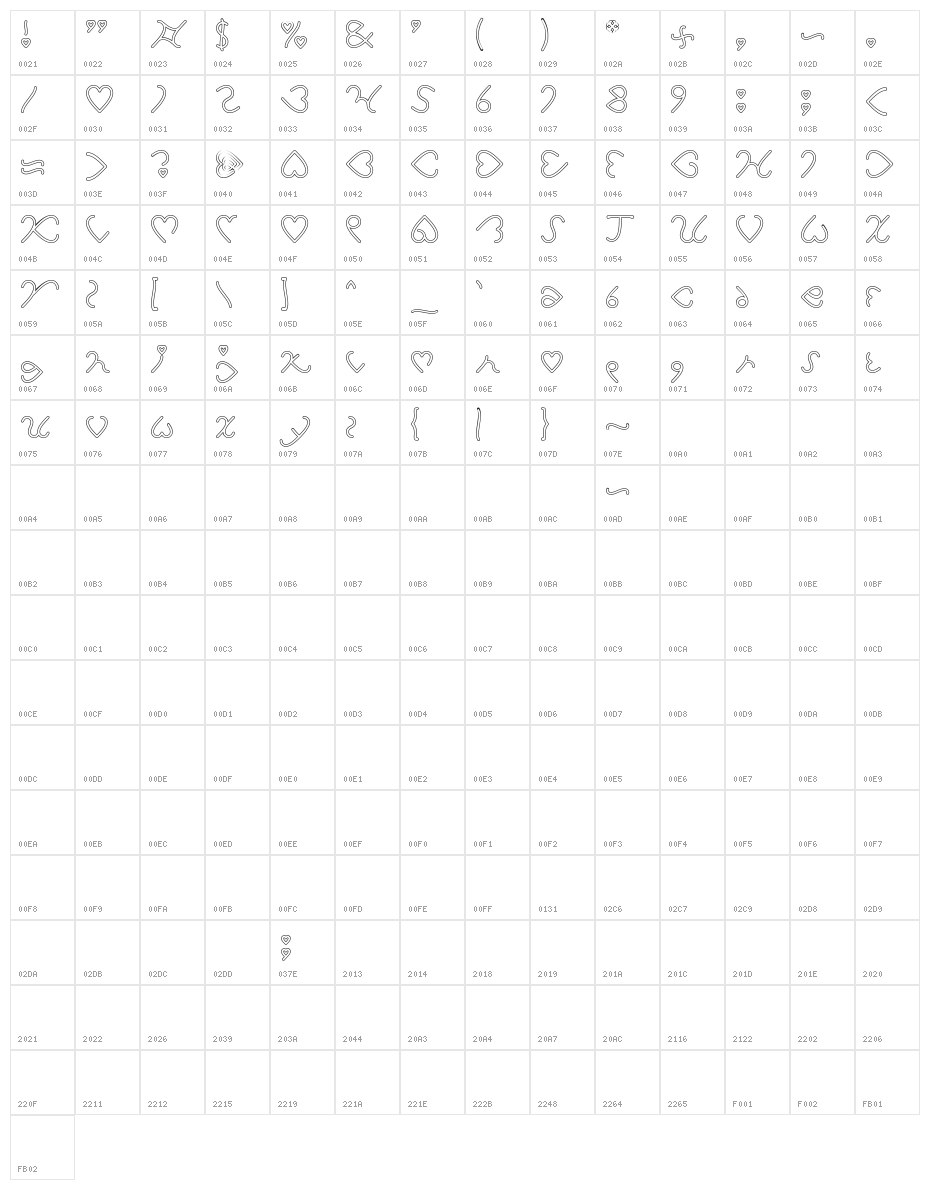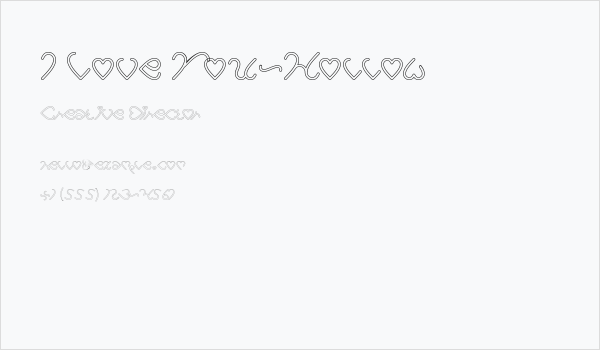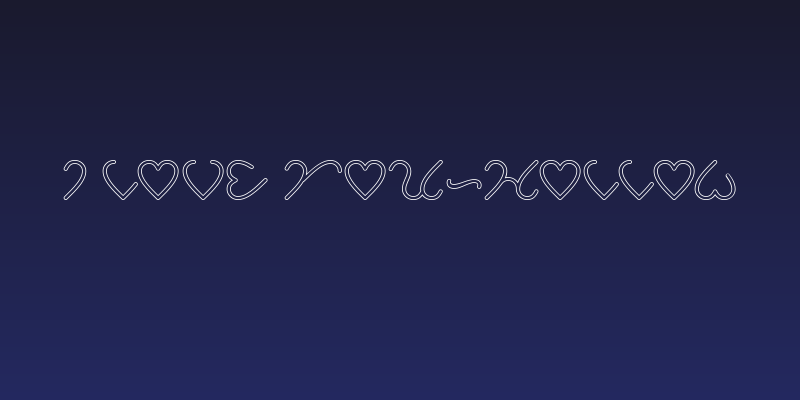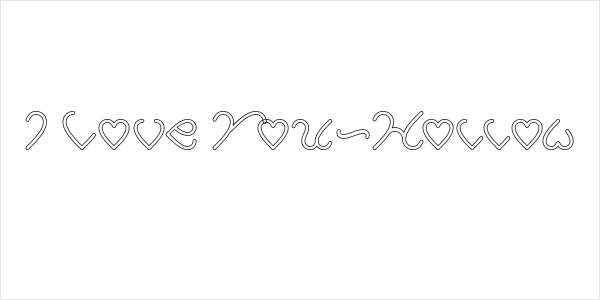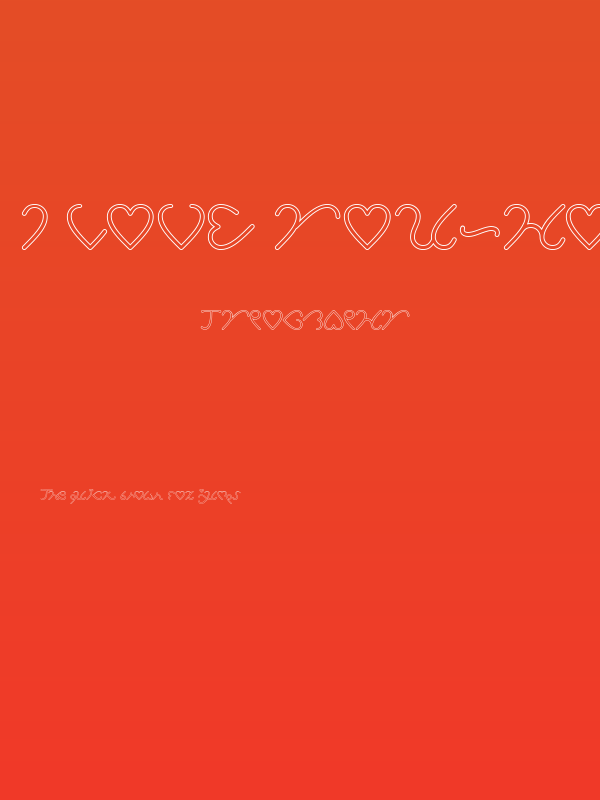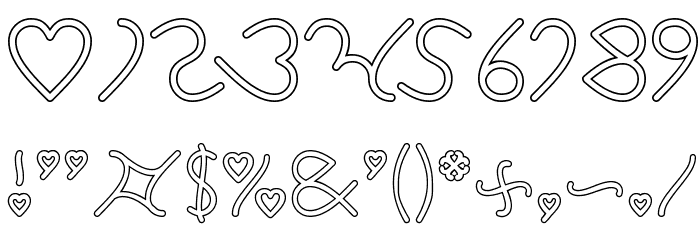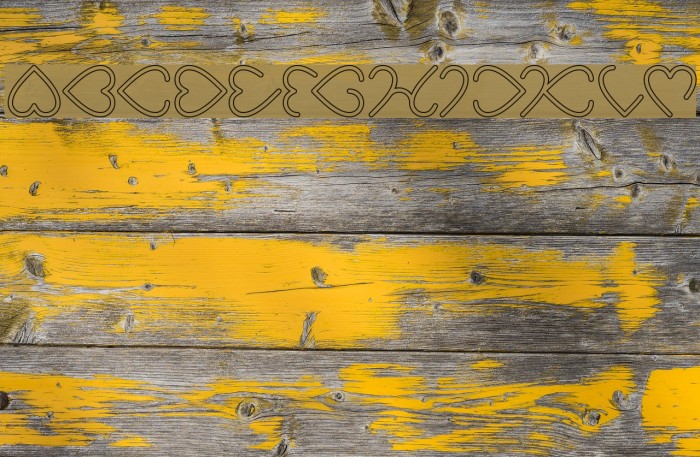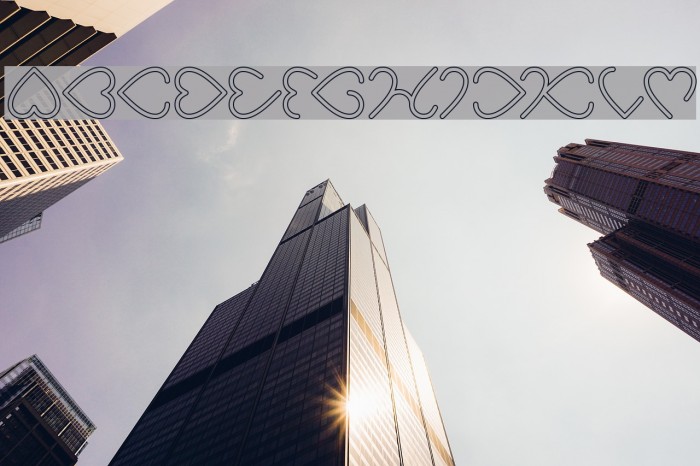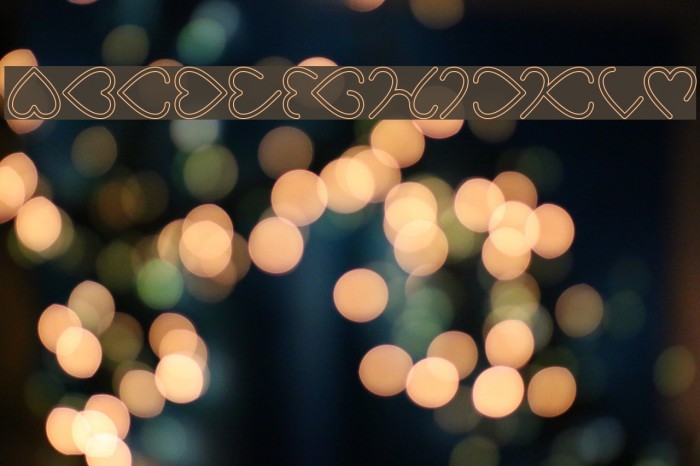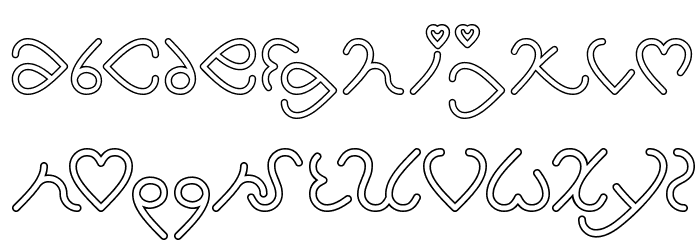
I Love You-Hollow Font
I Love You-Hollow Description
This playful and whimsical font features hollow characters with a heart motif integrated into each letter and number. The design is characterized by smooth, flowing lines and a consistent stroke width, giving it a light and airy feel. The heart shapes are cleverly incorporated, making it ideal for romantic or affectionate themes. Each character maintains a unique style while ensuring legibility, making it suitable for decorative purposes. The font includes a full set of uppercase and lowercase letters, numbers, and a selection of special characters, all designed with the same heart-themed aesthetic.
| Use Case | Logos, Headlines, Greeting cards |
| Proposed Projects | Ideal for Valentine's Day cards, wedding invitations, love-themed posters, and playful branding projects. |